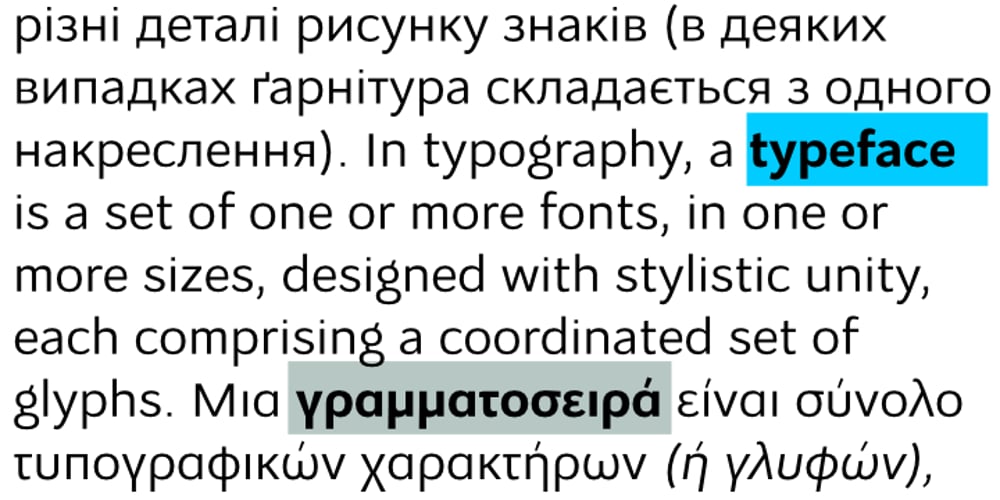
Osnova Font Family was designed by Andrij Shevchenko and published by AndrijType. Osnova contains 48 styles and family package options. The common Slavic word Osnova means basis in English. This universal but still distinctive typeface can make a good foundation for any design project. There is the main Osnova version and separated faces Osnova Alt, Osnova Fancy and Osnova Small Caps for Western Latin, Greek and Cyrillic languages.